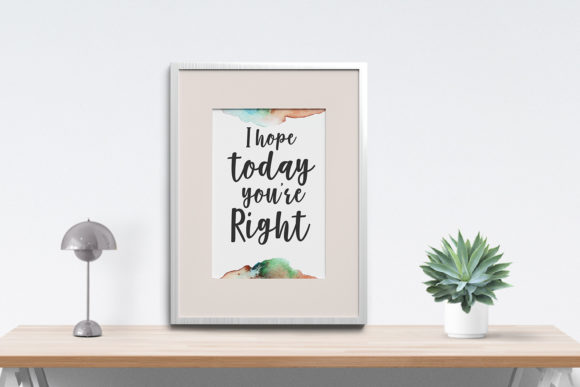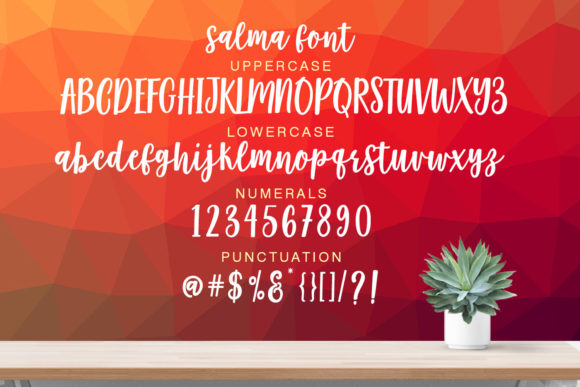
Introduction to Salma Desire Font
Remember that moment when you stumbled upon the perfect font for your creative project, and everything just fell into place? For designers, finding the right font can be a game-changer. It’s the difference between a good design and a great one. And that’s exactly what we’re excited to introduce you to today: the stunning Salma Desire Font.
This modern and fancy handwritten font is a design resource that perfectly combines classy typography with a modern feel. With its elegant curves and sophisticated style, the Salma Desire Font is ideal for creating amazing titles, signatures, logos, wedding invitations, and more. Whether you’re working on a high-end project or a personal creative endeavor, this font is sure to elevate your design to the next level.
Key Features of Salma Desire Font
- High-quality, elegant design perfect for creative projects requiring a touch of sophistication.
- Unique, hand-crafted design elements that set it apart from other fonts, adding a personal touch to any creative project.
Honest Review: Salma Desire Font
I recently had the chance to work with the Salma Desire Font, and I must say, it’s been a great addition to my design resource library. ✨
The font’s elegant and sophisticated style makes it perfect for creative projects that require a touch of luxury and sophistication. It’s a high-quality font that’s sure to elevate your design game. One of the standout features of this font is its transparent background, making it easy to customize and integrate into your design.
Here are some of the things that work well with the Salma Desire Font:
- Elegant and sophisticated style that’s sure to impress
- Not suitable for projects that require a bold or playful font
Overall, I’m impressed with the Salma Desire Font and would highly recommend it to designers looking for a high-quality, elegant font for their creative projects. ⚠️ While it’s not perfect, the benefits far outweigh the limitations, making it a valuable addition to any design resource library.
Salma Desire Font
Tips for Getting the Most Out of the Salma Desire Font
To get the most out of the Salma Desire Font, use it with a transparent background to create a beautiful and elegant design. Experiment with different font sizes and colors to add depth and visual interest to your project.
The Salma Desire Font is perfect for various creative projects, including: wedding invitations, birthday parties, fashion designs, and more. Its high-quality design and elegant look make it a popular choice among designers and creatives.